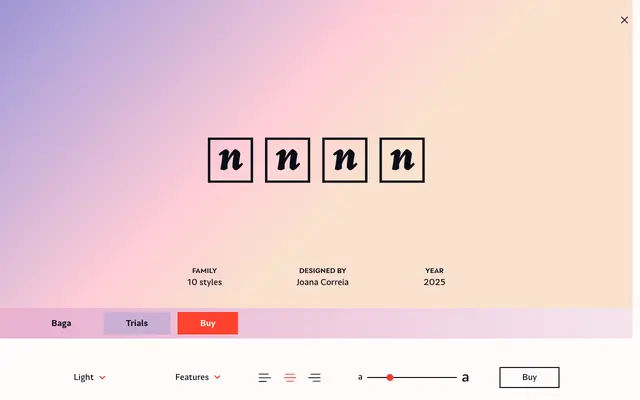
Baga
Nova Type Foundry · Joana Correia · 2025
A soft display script by Joana Correia in five weights, aimed at packaging and branding work with smooth, rounded letterforms.
Designed by Joana Correia and released in 2025, Baga offers ten styles across five weights from Light to Bold, each with a matching italic. The typeface includes a stylistic set offering two-storey a and g alternates to aid legibility at smaller sizes, and covers Latin Extended for broad European language support. Its smooth character shapes suit consumer packaging, editorial display and identity work where a gentle, approachable tone is needed.
The foundry describes Baga as a script typeface with smooth, inviting letterforms designed for display use in packaging and branding, with connected or flowing shapes characteristic of casual script styles.